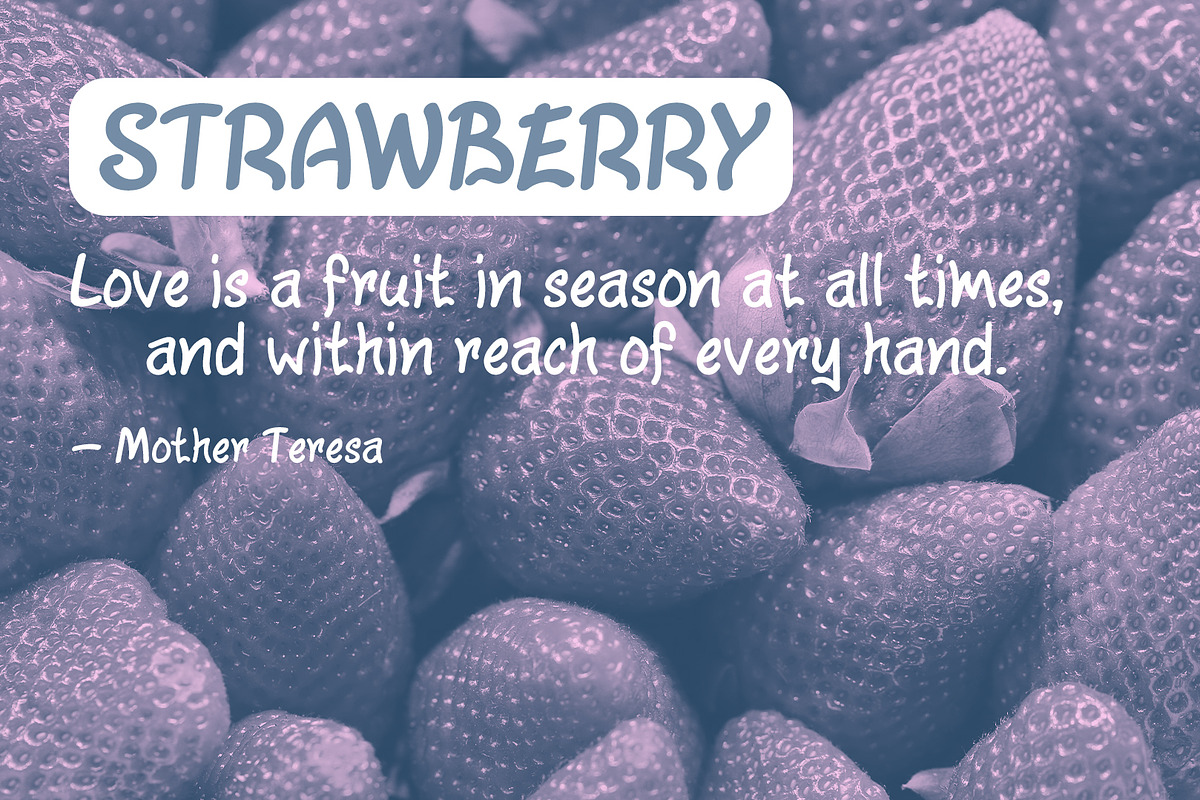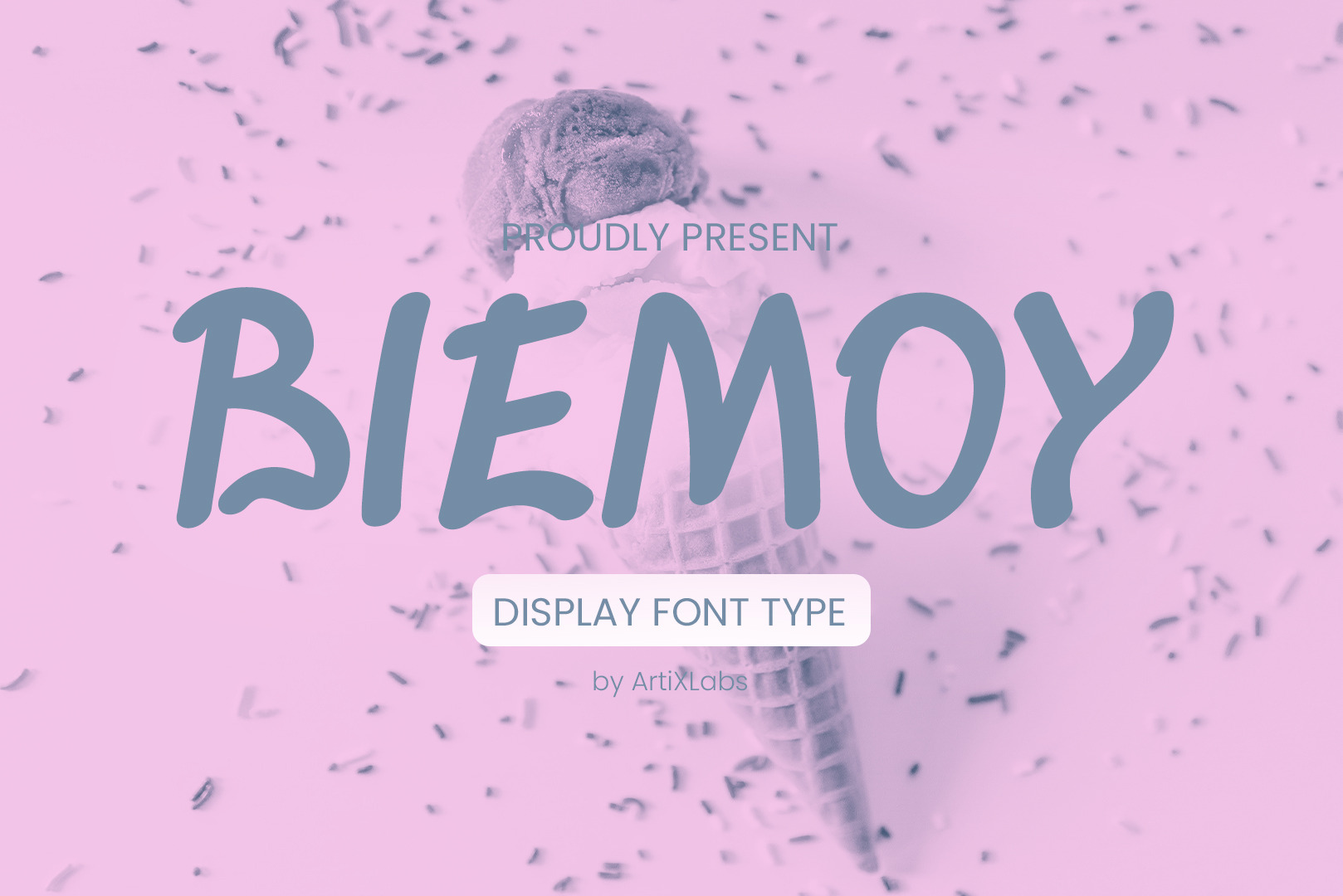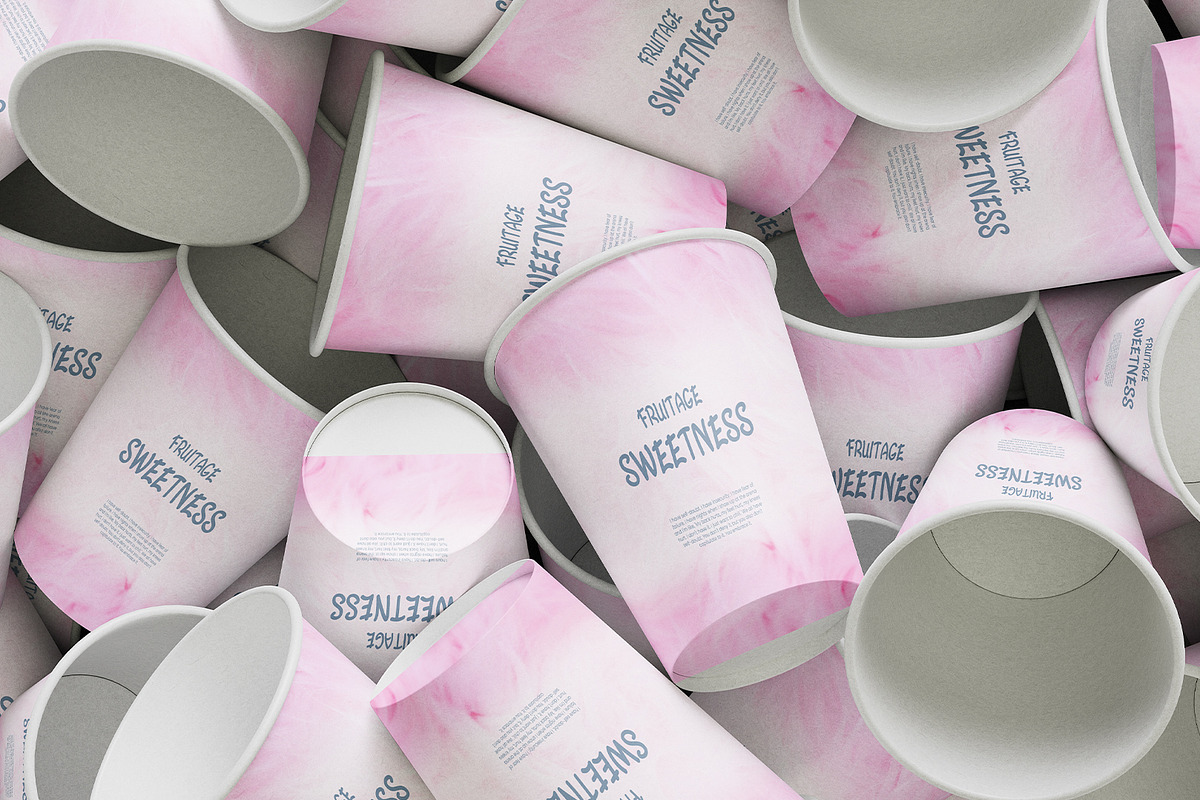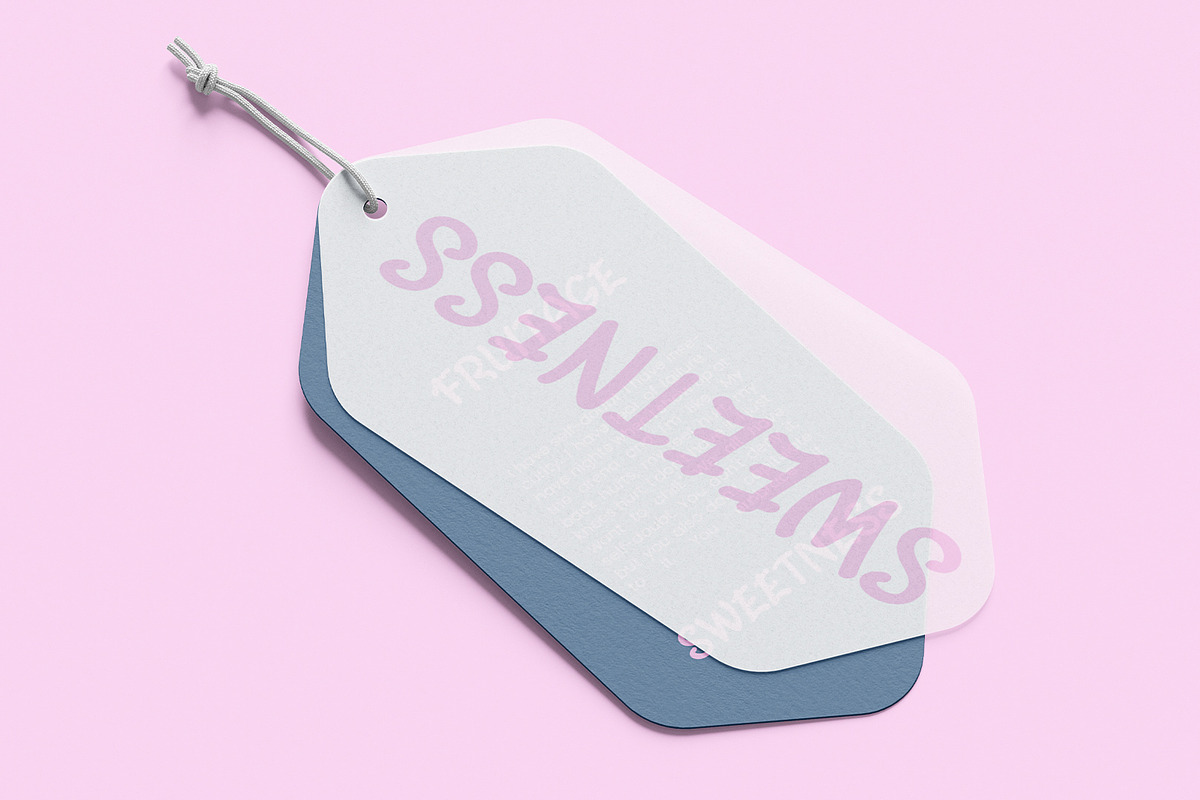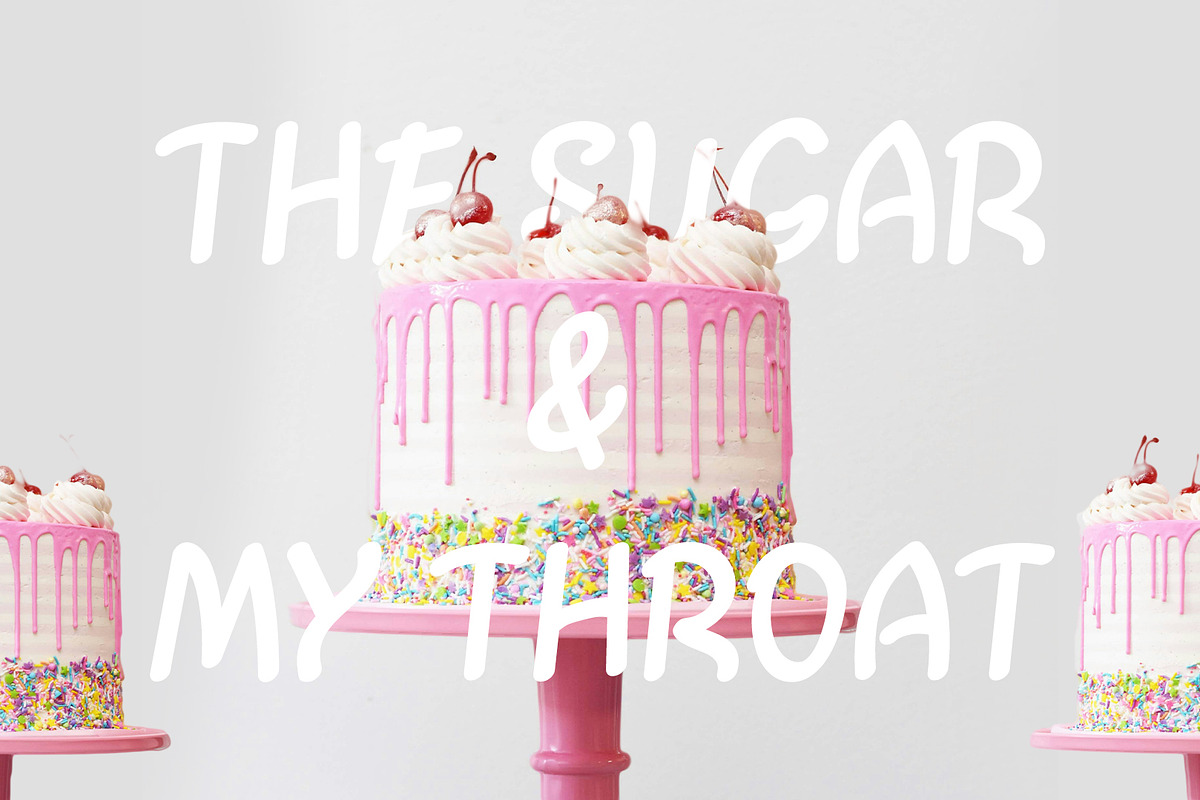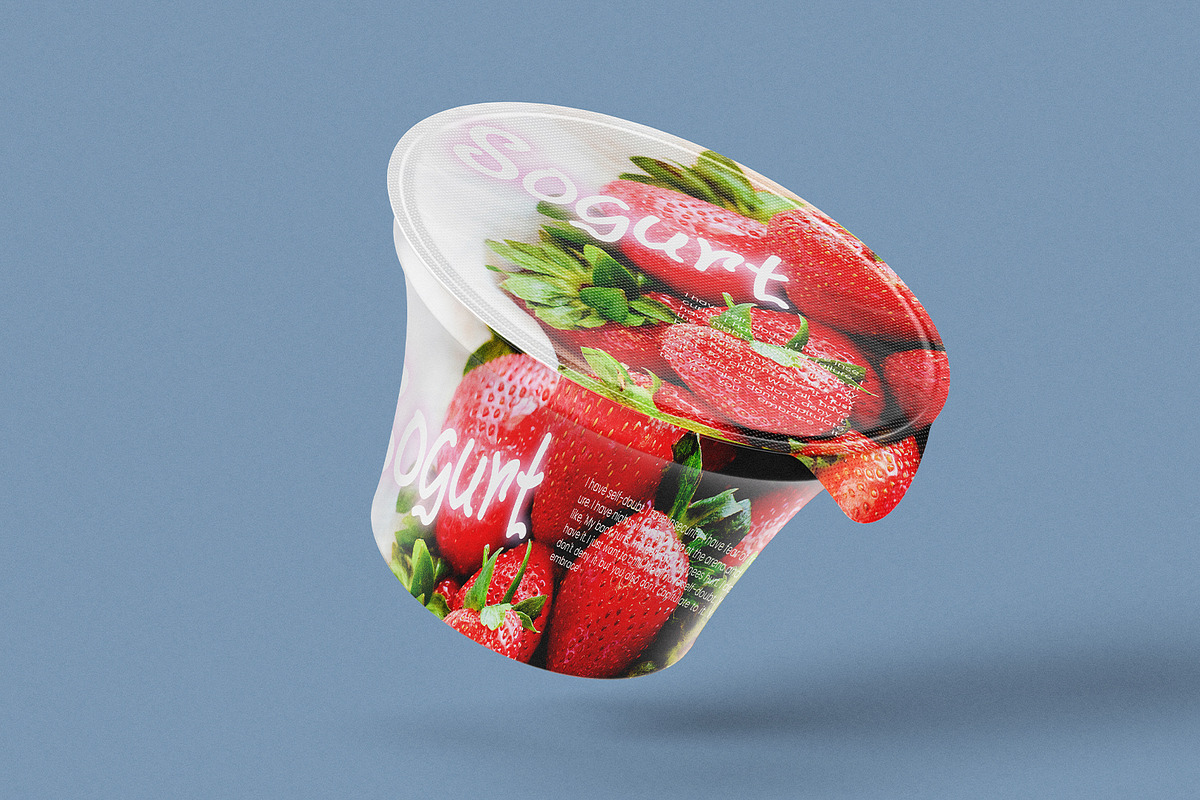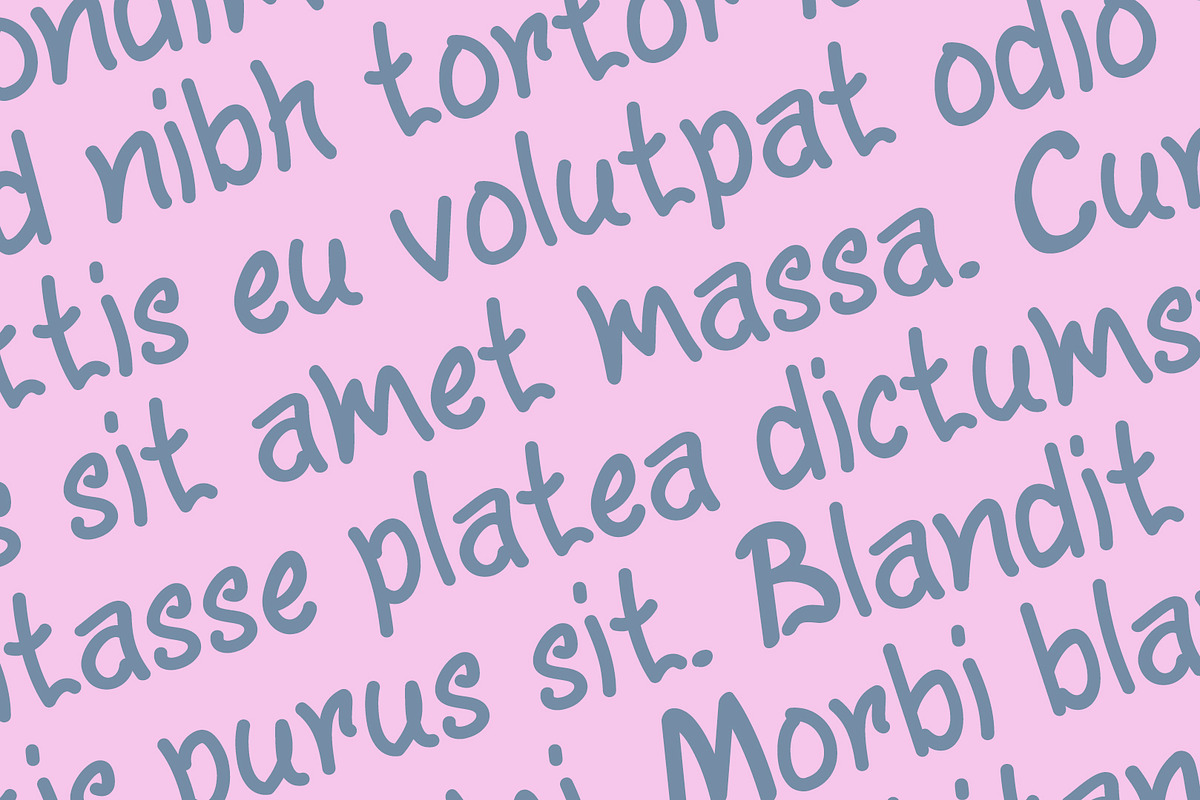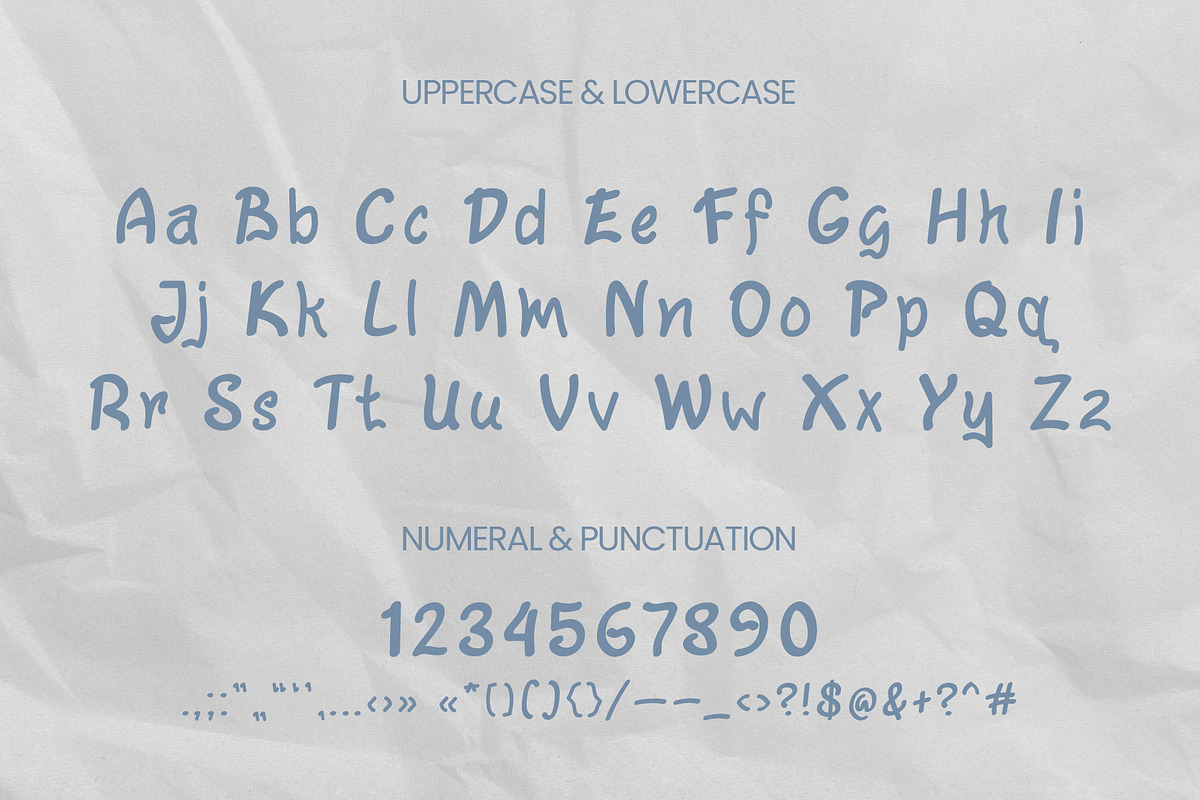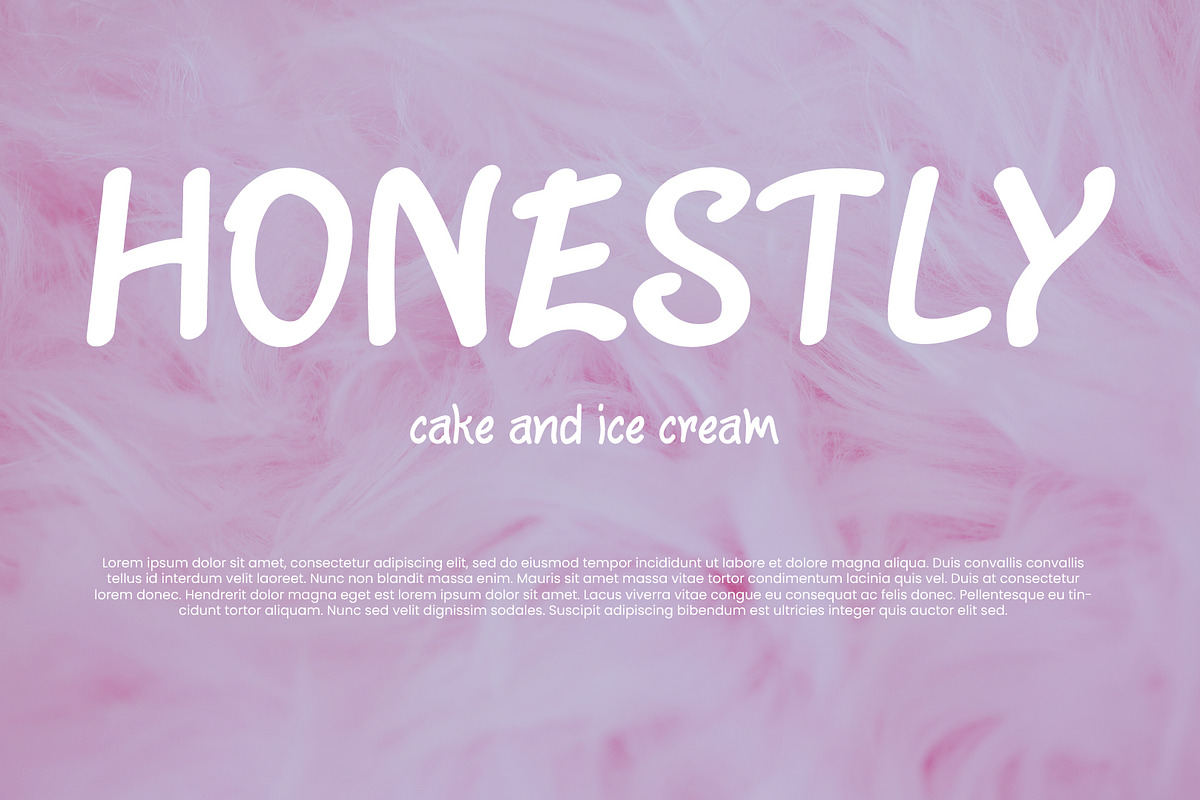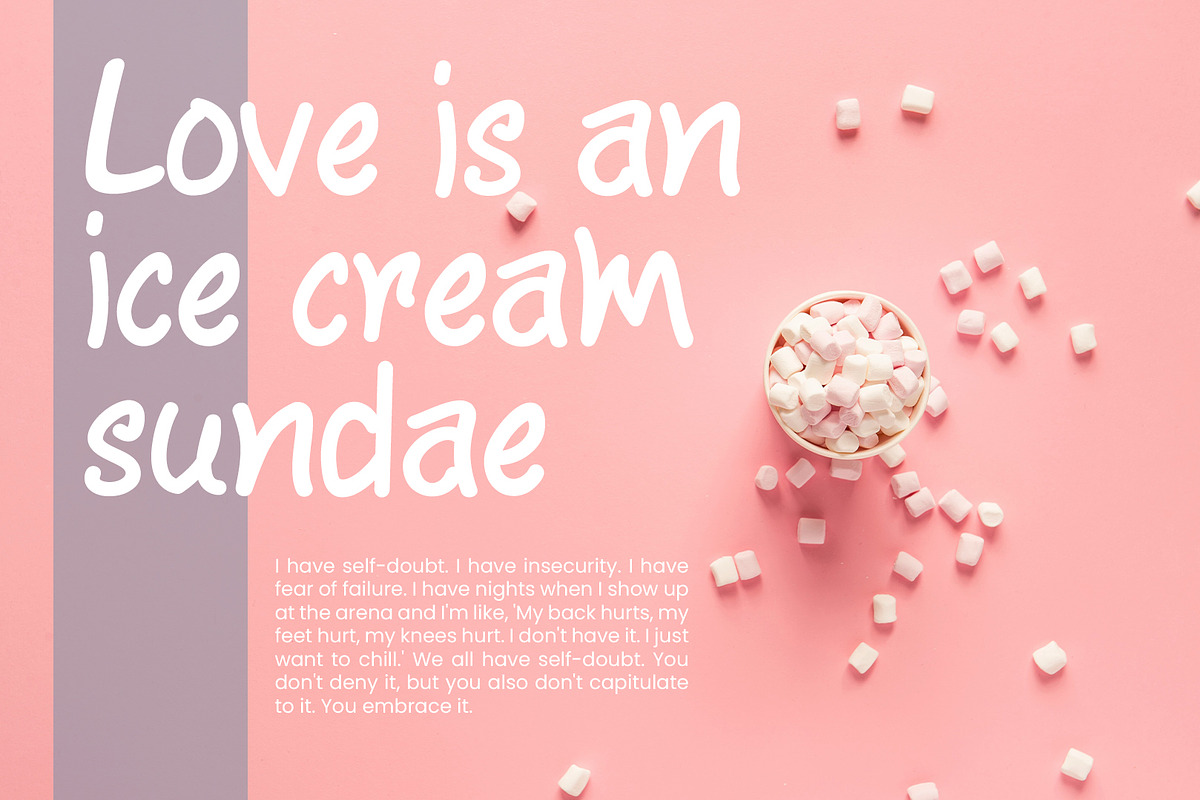
Biemoy Playfull Cheersfull Font
Introducing Biemoy - Playfull Font Minimalist Rounded Font for Cute & Modern Designs
Biemoy is a charming rounded font that combines cuteness with minimalist elegance. Perfect for modern branding, kids’ projects, or playful social media content, this font adds a friendly and approachable vibe to your designs. Its clean, rounded edges make it ideal for creating logos, packaging, or digital content that feels both fun and professional. This Font can be used for any variety of purposes, such as: Event, Birthday, Ceremony, Packaging Products, Logo Type, Branding, T-Shirt Design, Website/Blog, Headline Magazine, Brochures and also can be used for other purpose.
This Font Template contains Playfull, Cheersfull, Creative, Professional and Unique Concept.
- Uppercase & Lowercase letters